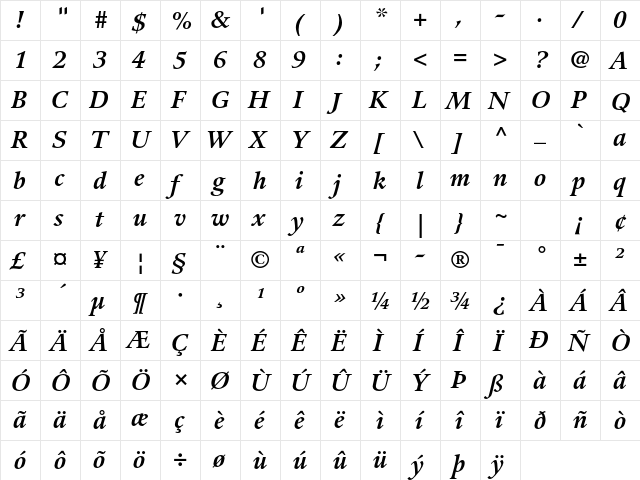
Guardi LT Std 76 Bold Italic
| Designer | Reinhard Haus |
Design Context for Guardi LT Std Typeface
Guardi LT Std is a composed and adaptable typeface that performs quietly and consistently across a wide range of design contexts. Its italic angle brings a sense of urgency and motion to the letterforms. The heavy weight commands attention and anchors typographic hierarchies.
Pro Tip: Try Guardi LT Std for annotation and caption copy alongside an upright companion — the contrast in angle creates a dynamic but ordered typographic system.